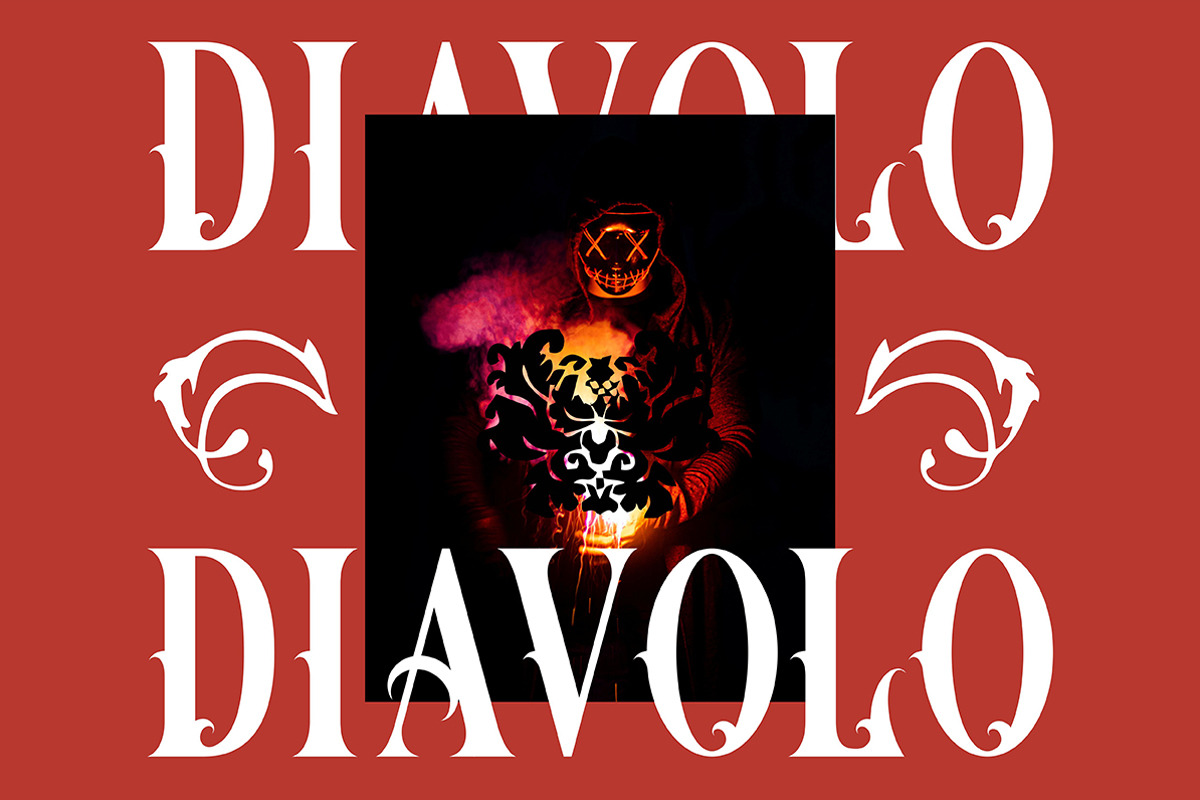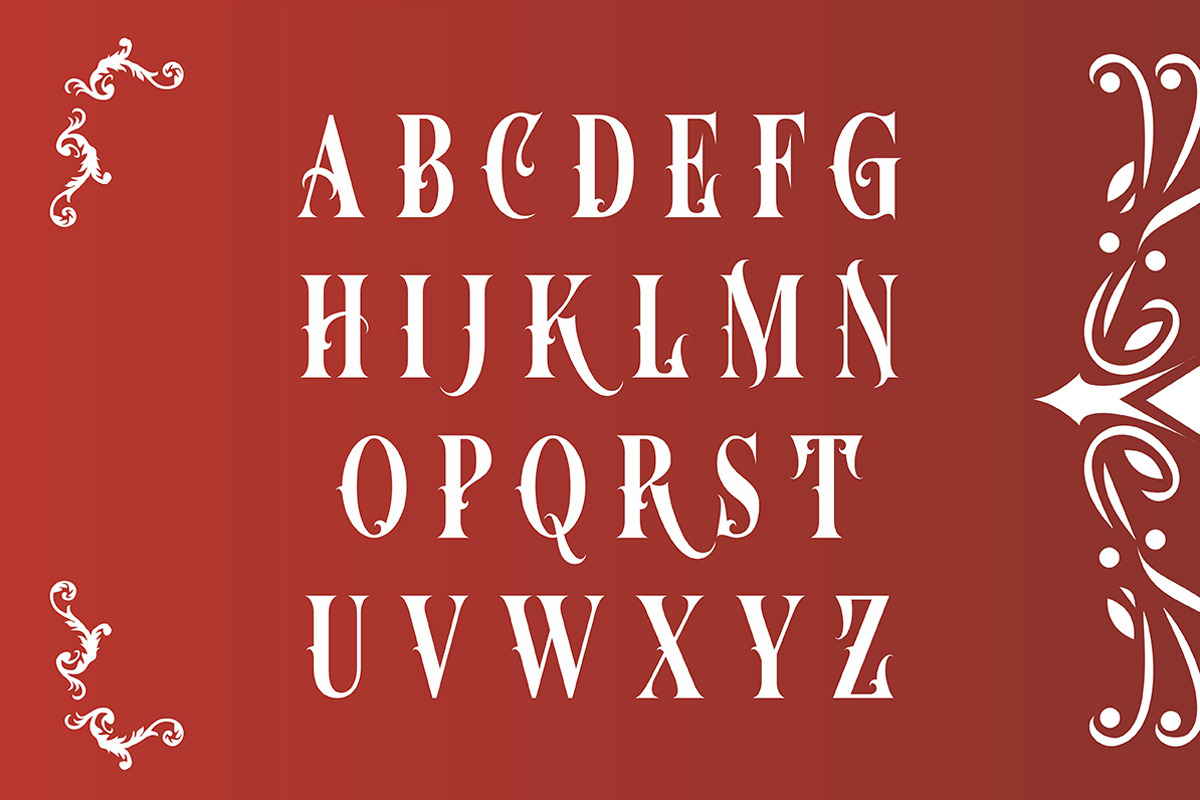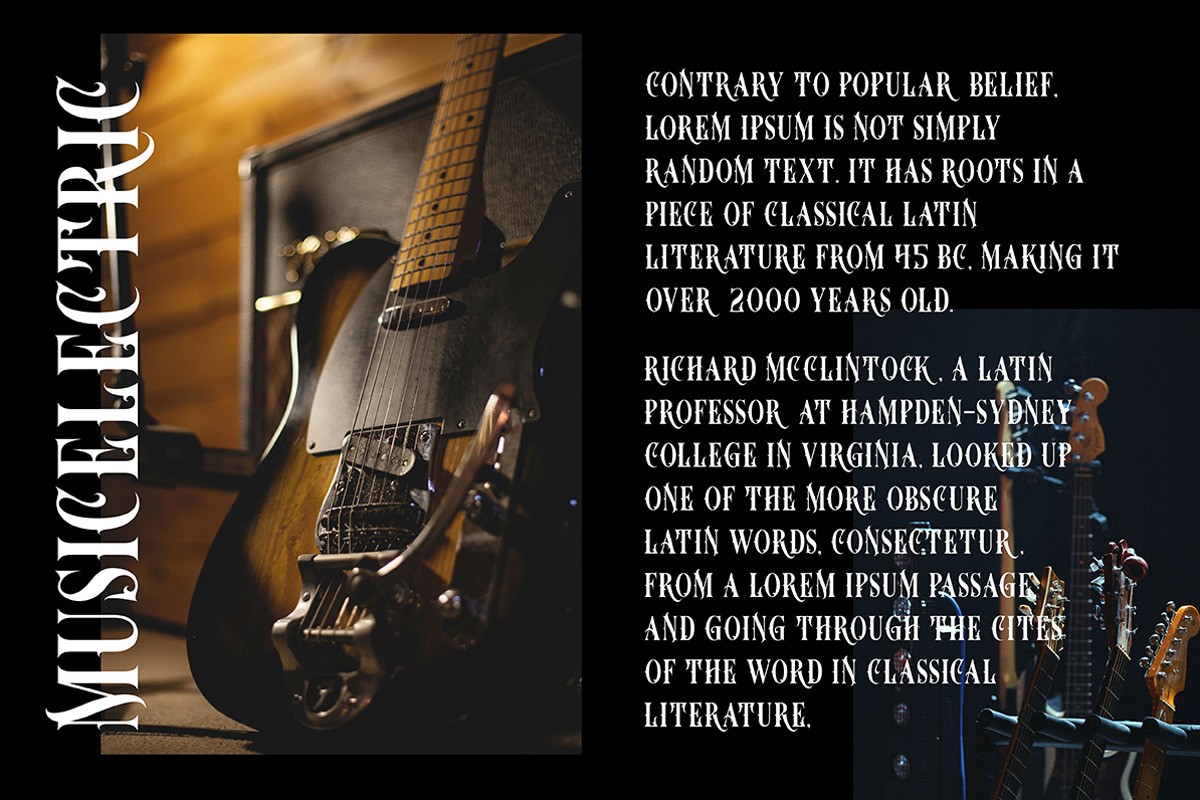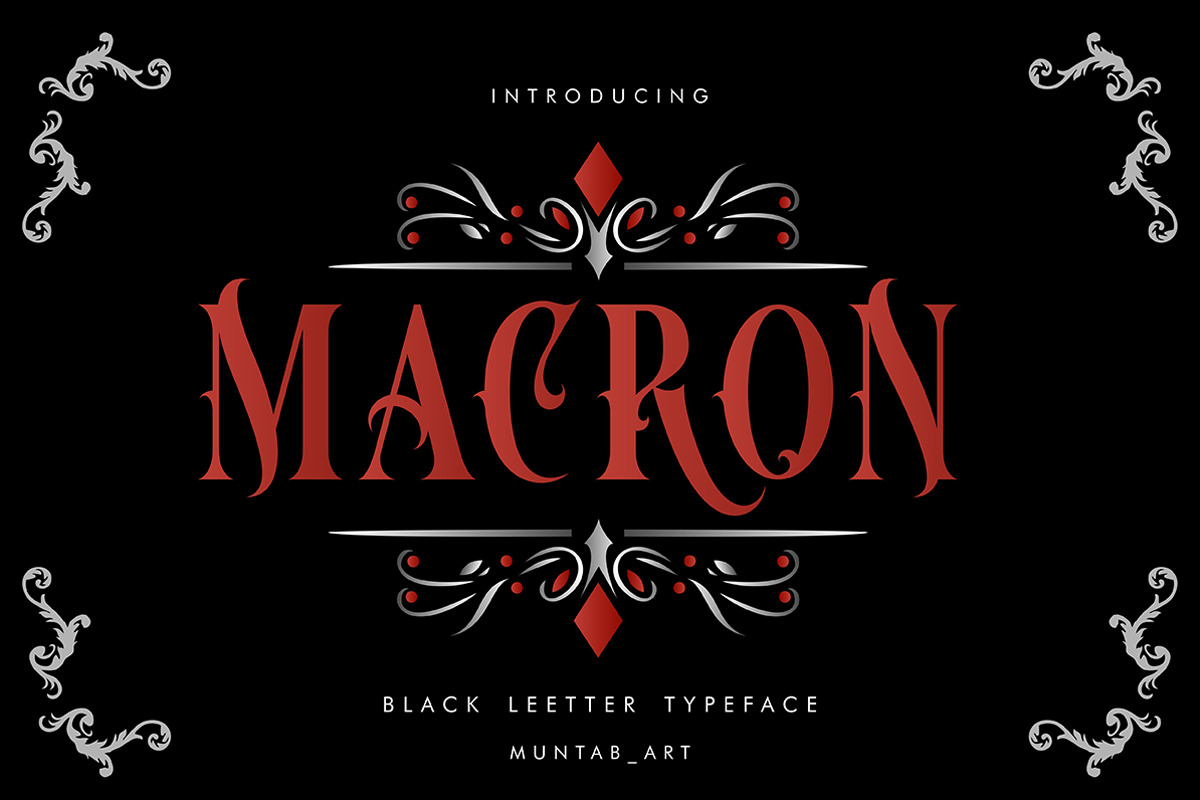
Macron | Vintorian Font
Macron fonts includes uppercase letters, numerals, a large range of punctuation. Victorian font with tattoo style. Created for poster, web design, branding, illustrations, badges, shirt design and some other works.